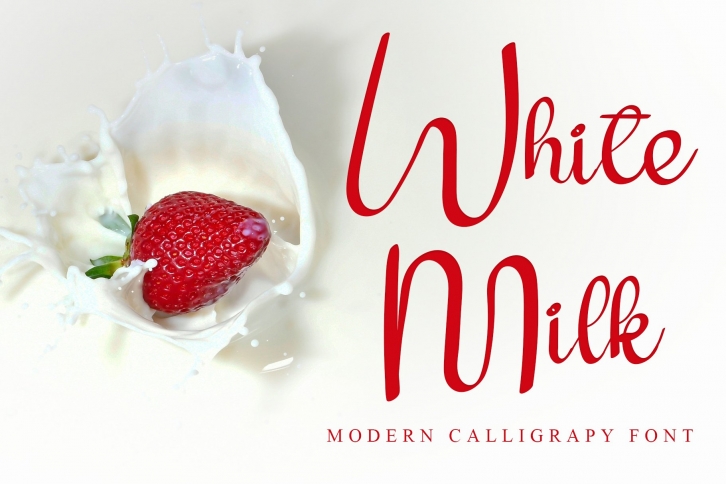
White Milk is a trendy and unique font with an authentic style. It was designed by Giart Studios and it's a great choice for creative people who need such a font. It was released on March 17, 2022 and the file size is 18.83 MB. White Milk will add an organic vibe to any design idea!